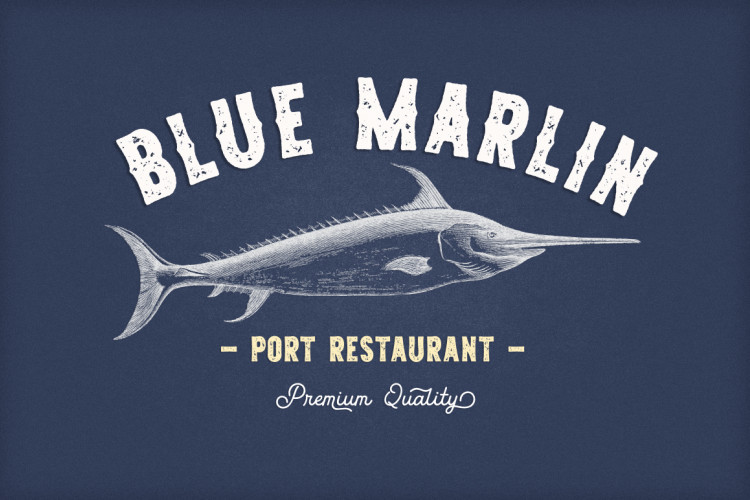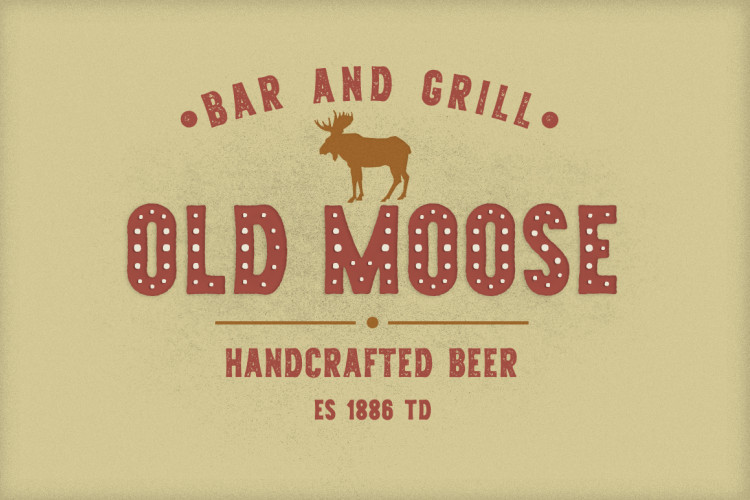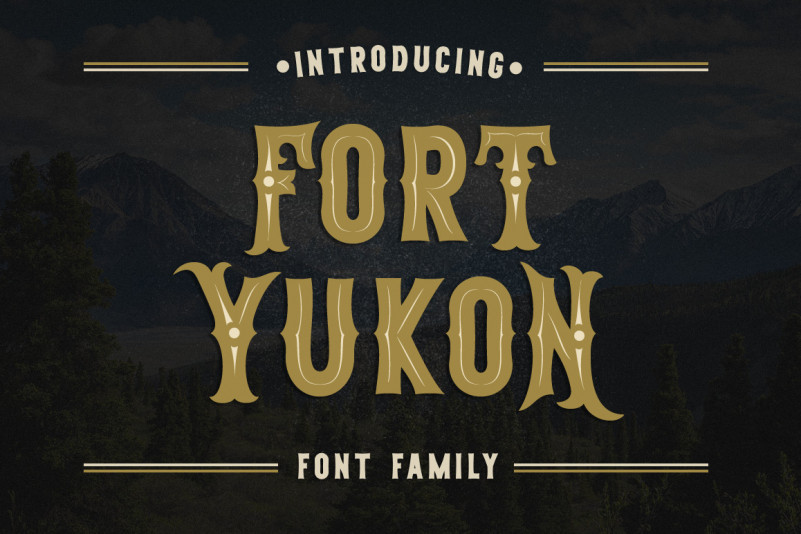
Fort Yukon Logo Font
These fonts are ideal for branding and will decorate any of your projects. You can also use them to create a logo or use for small businesses, t-shirts, book covers, stationery, marketing, blogs, magazines, and more.